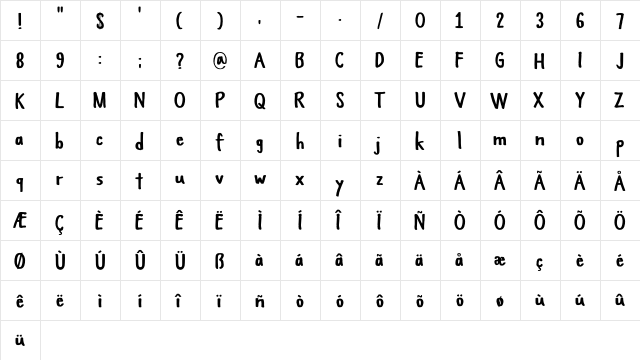
Himawari Script DEMO Regular
Design Context for Himawari Script DEMO Typeface
Himawari Script DEMO flows with the natural rhythm of handwritten lettering, making it ideal for designs that call for warmth and personal expression.
Font Pairing: Combine Himawari Script DEMO with a simple geometric sans for maximum contrast — the tension between flowing curves and clean structure is a classic typographic pairing.
Pro Tip: Use Himawari Script DEMO for short runs of text — names, titles, or taglines. Extended body copy in script faces tires the eye quickly.